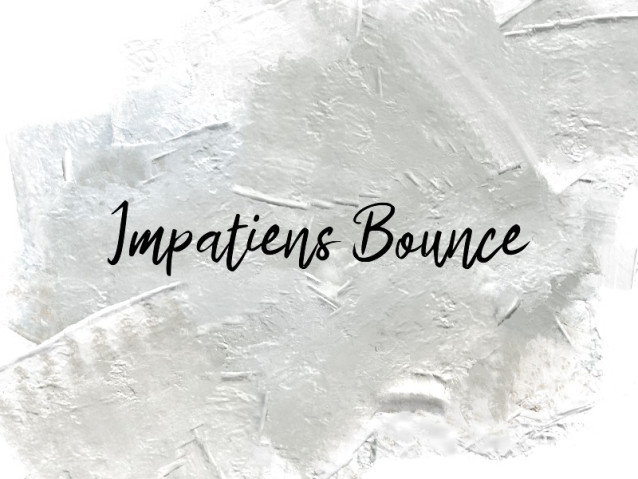
Impatiens Bounce Font
Impatiens Bounce Font is a simple and friendly handwritten font. Its natural and unique style makes it incredibly fitting to a large pool of designs. The only limit is your imagination!